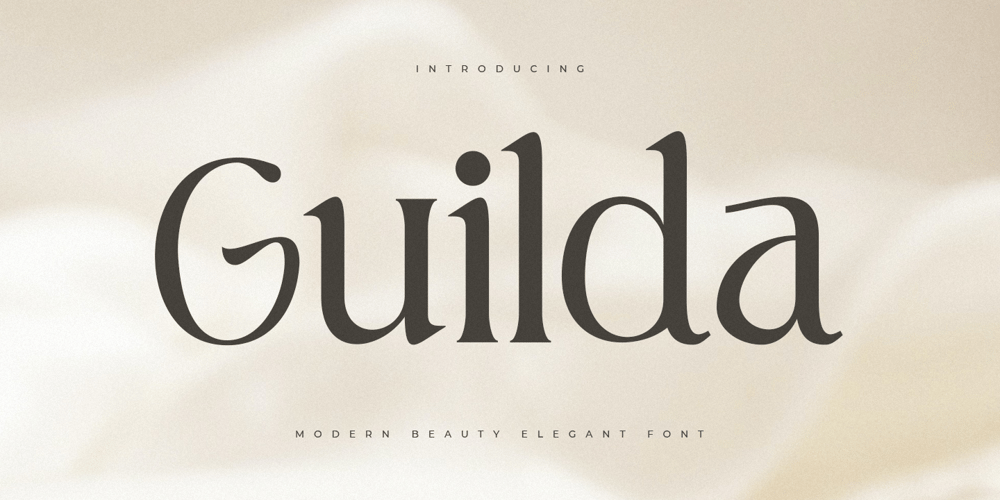
Guilda Font Family was designed by Zamroni Hamzah and published by Sensatype Studio. Guilda contains 1 styles and family package options. A Modern Classy Beauty Elegant Font that we created special for Luxury and Fashion branding needs, with extra characters alternate in unique shape will be ready to add value of your brand. Guilda- Modern Beauty Elegant Font ready with: Any options to get creative variations (combination of Any Alternates) Preview as a inspirations that you can do with Guilda font Ready with Lowercase and Uppercase characters Wish you enjoy our font. ๐